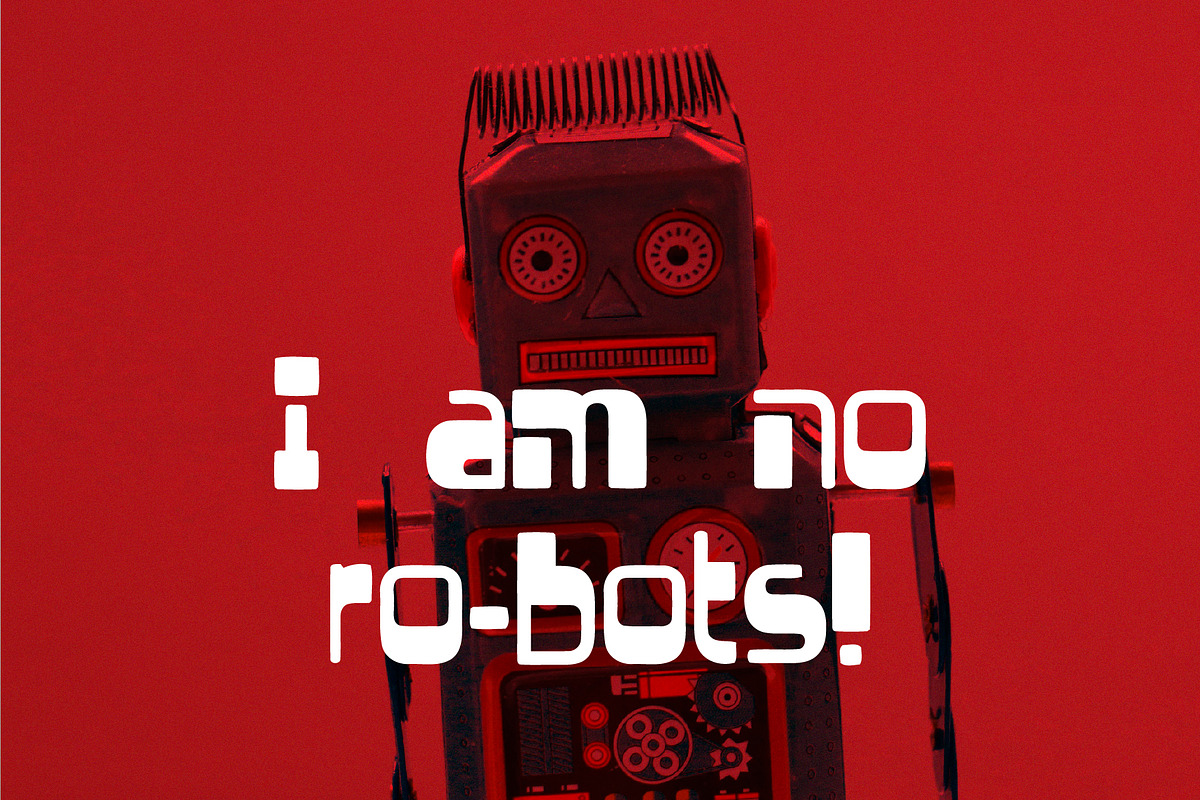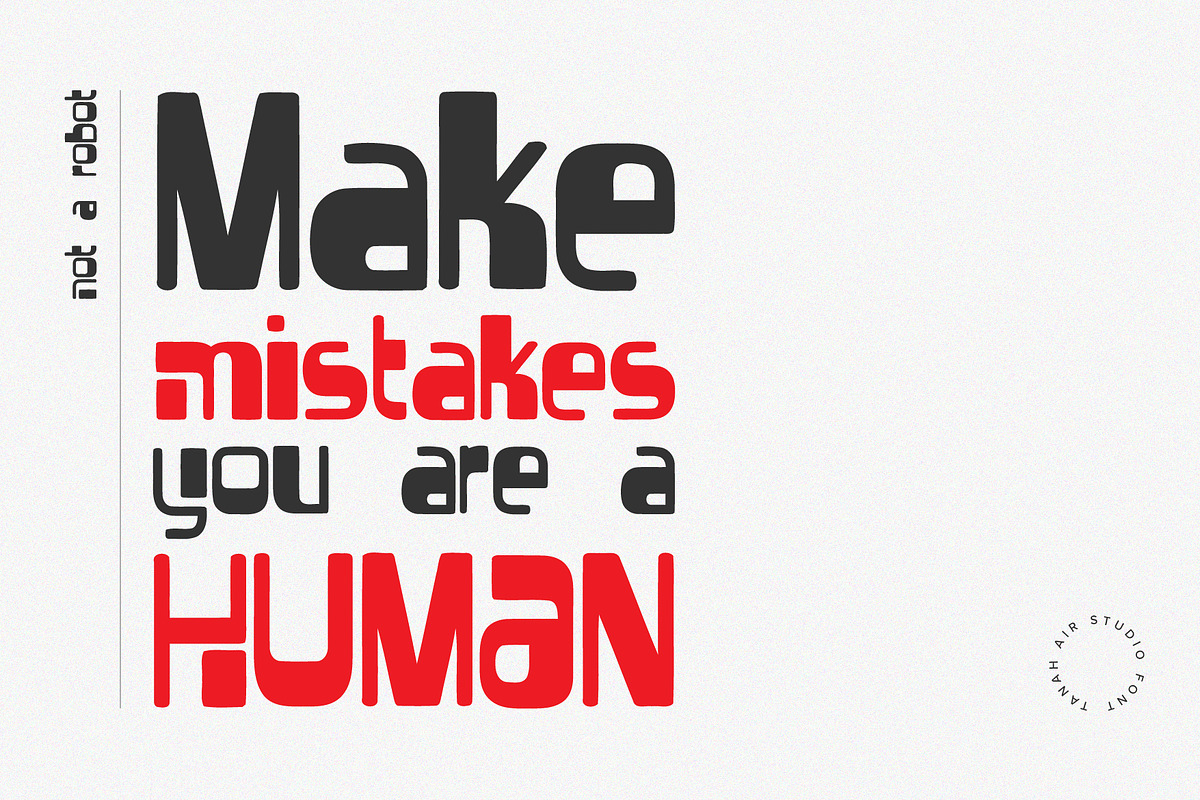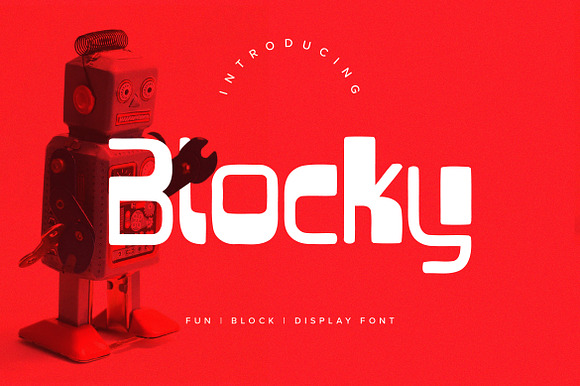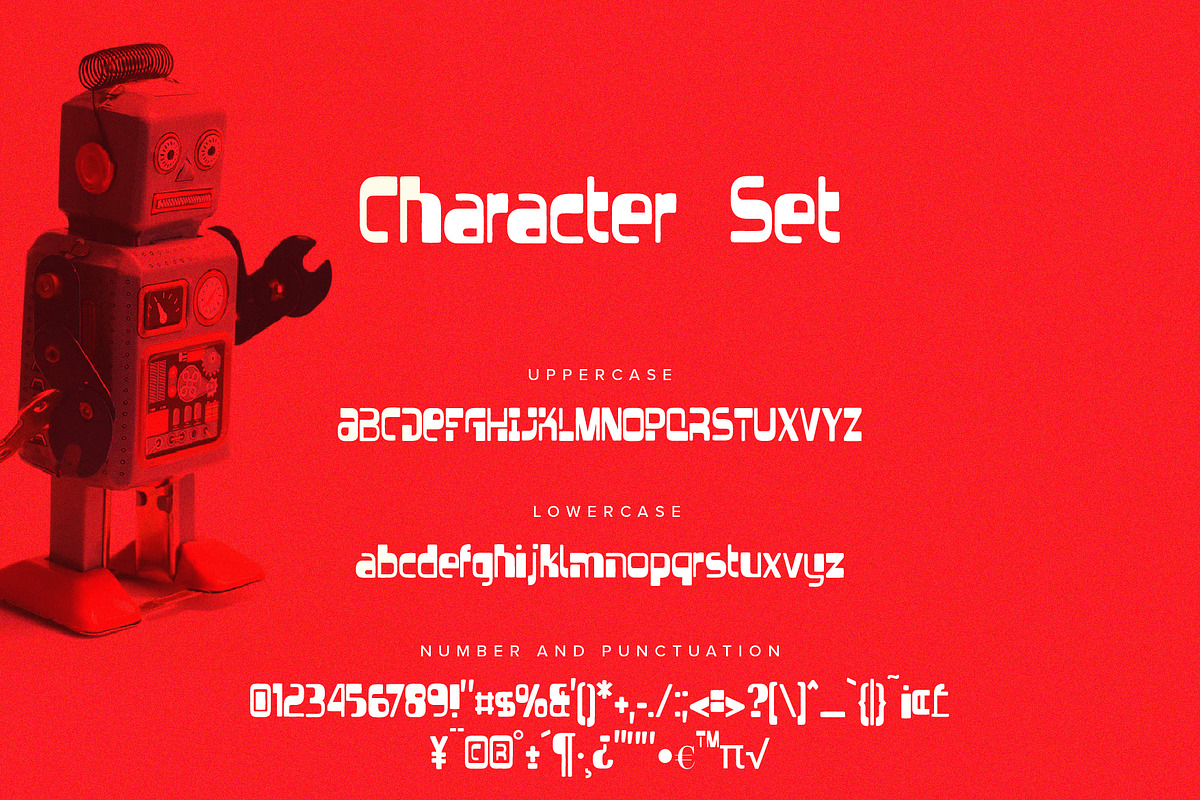
Blocky Fun Display Font
Blocky Fun Display font is a font created with robot & technology in mind. It features a unique style and will add a friendly feel to your upcoming projects. Get inspired by its unique feel and use it to create beautiful poster, product packaging or logo and many more!
Why Blocky Fun Display Font is worth a look
Blocky Fun Display Font by Kreativ Space fits naturally into Branding, posters, packaging, typography.